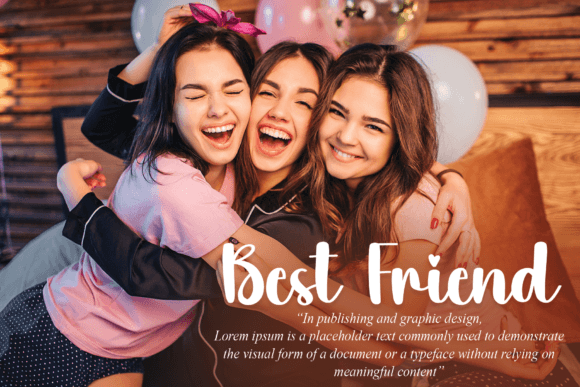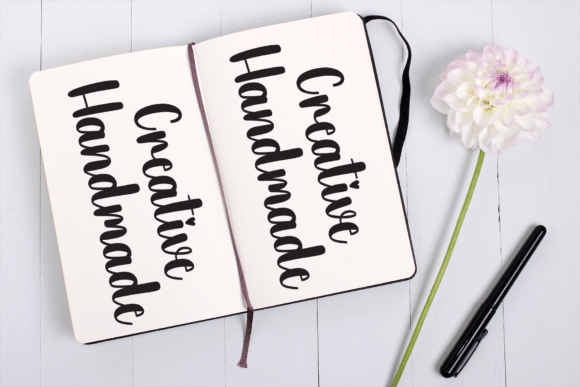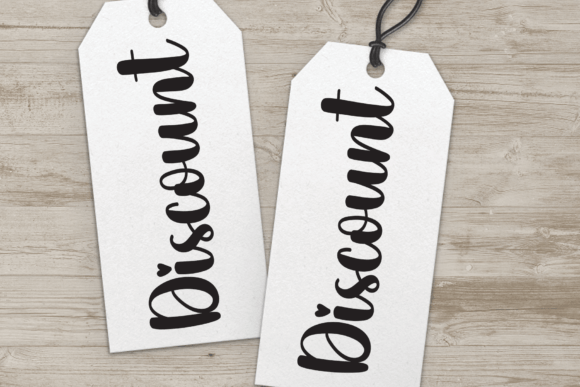
Introduction to Hey Husband Font
Hey Husband’s latest style letters are perfect for wall displays, wedding invitations, social media post logos, advertisements, product packaging, product designs, labels, photography, watermarks, invitations, stationery, and any project that requires a handwritten taste.
Key Features of Hey Husband Font
Why Choose Hey Husband Font?
Hey Husband Font offers exceptional quality and versatility, making it a valuable addition to your design toolkit. Whether you’re creating for personal projects or commercial use, Hey Husband Font delivers professional results.